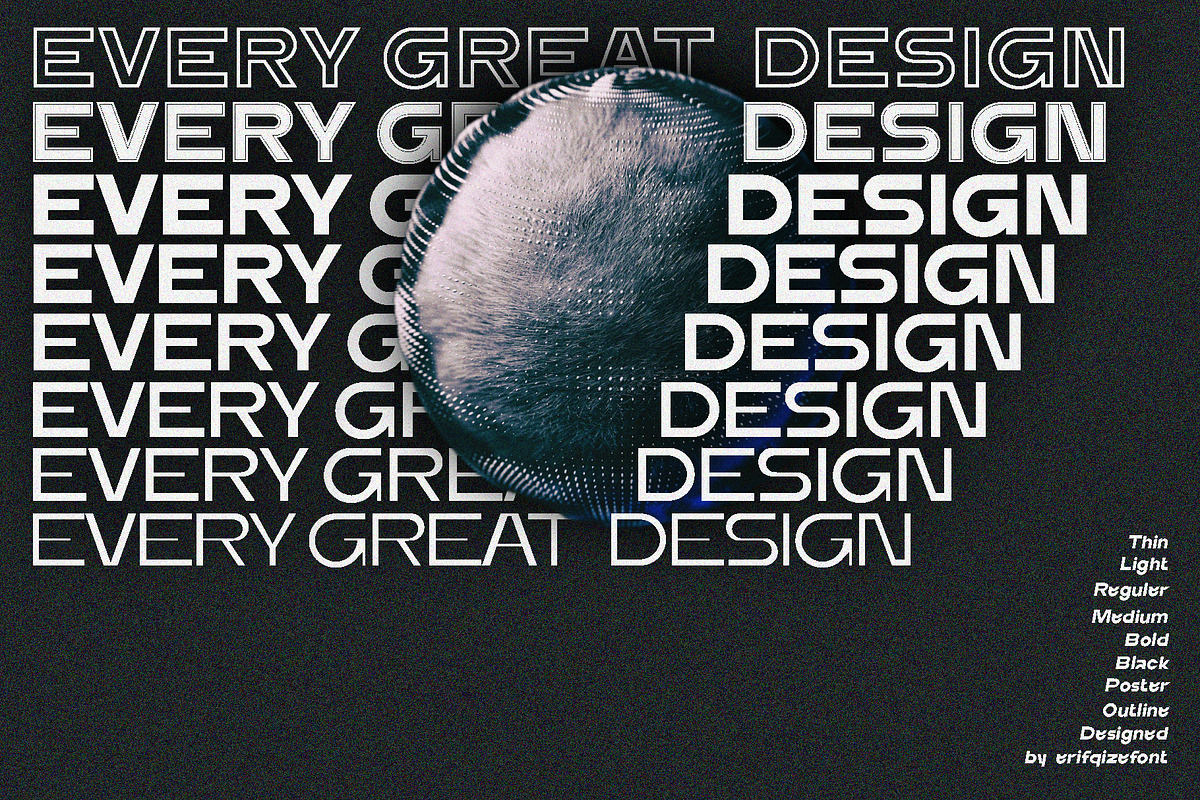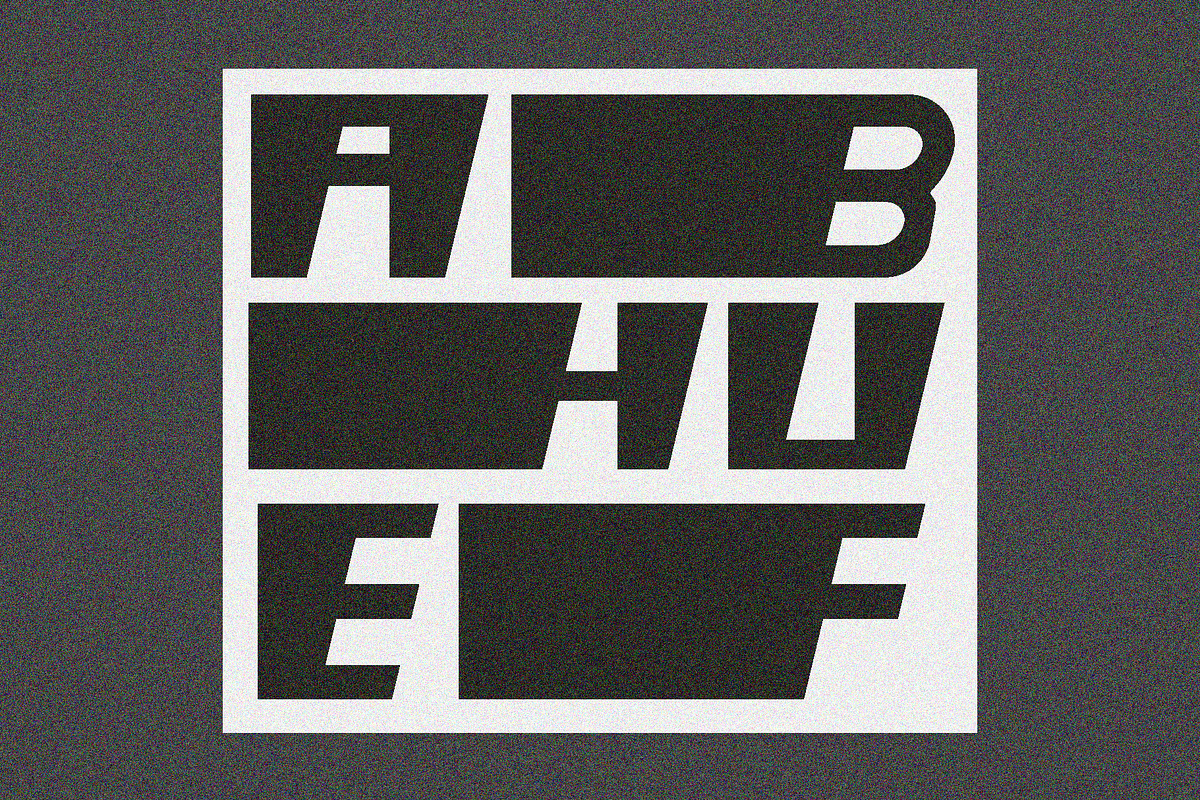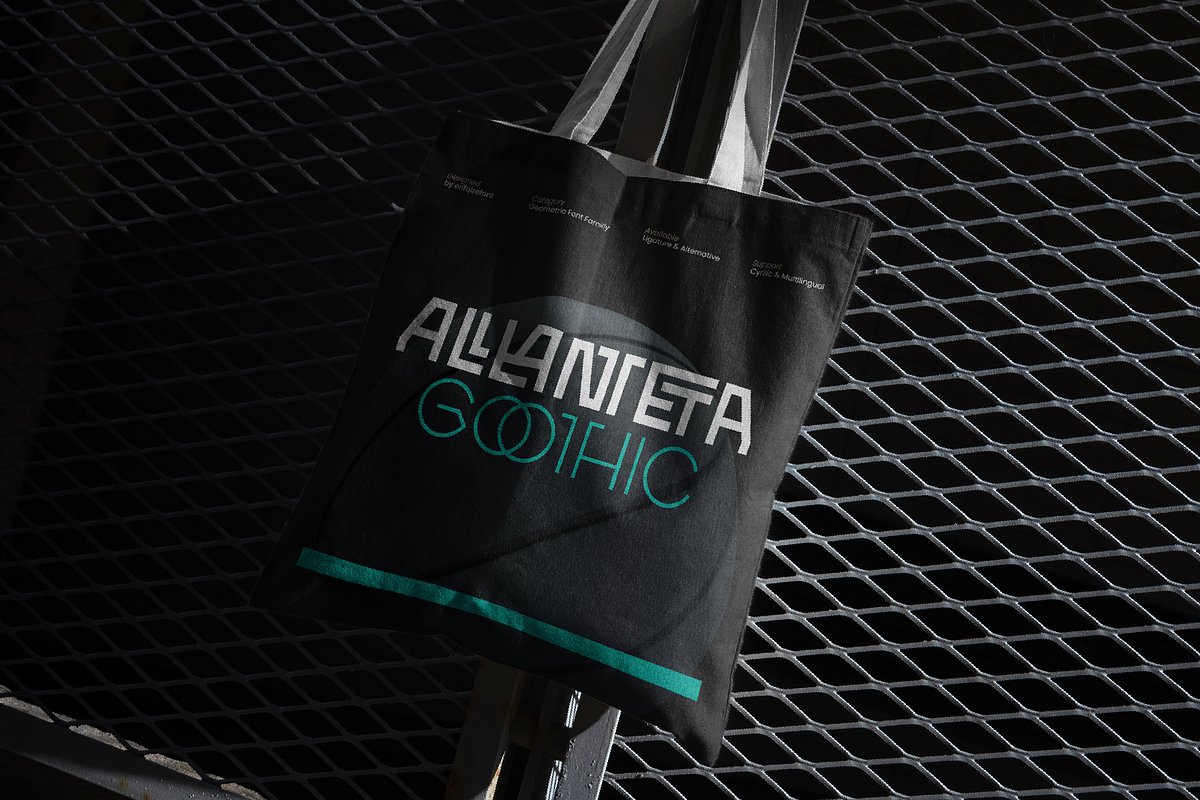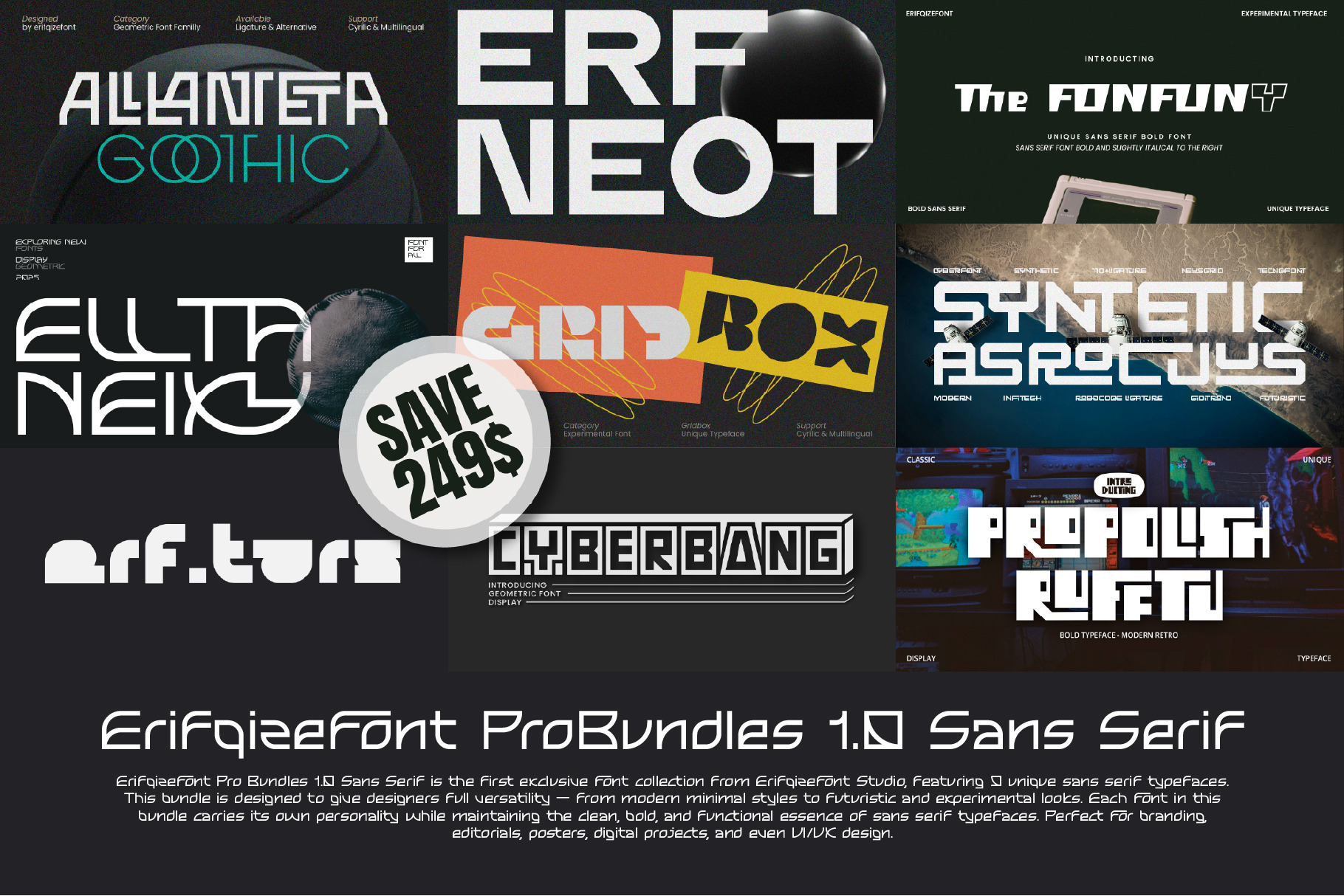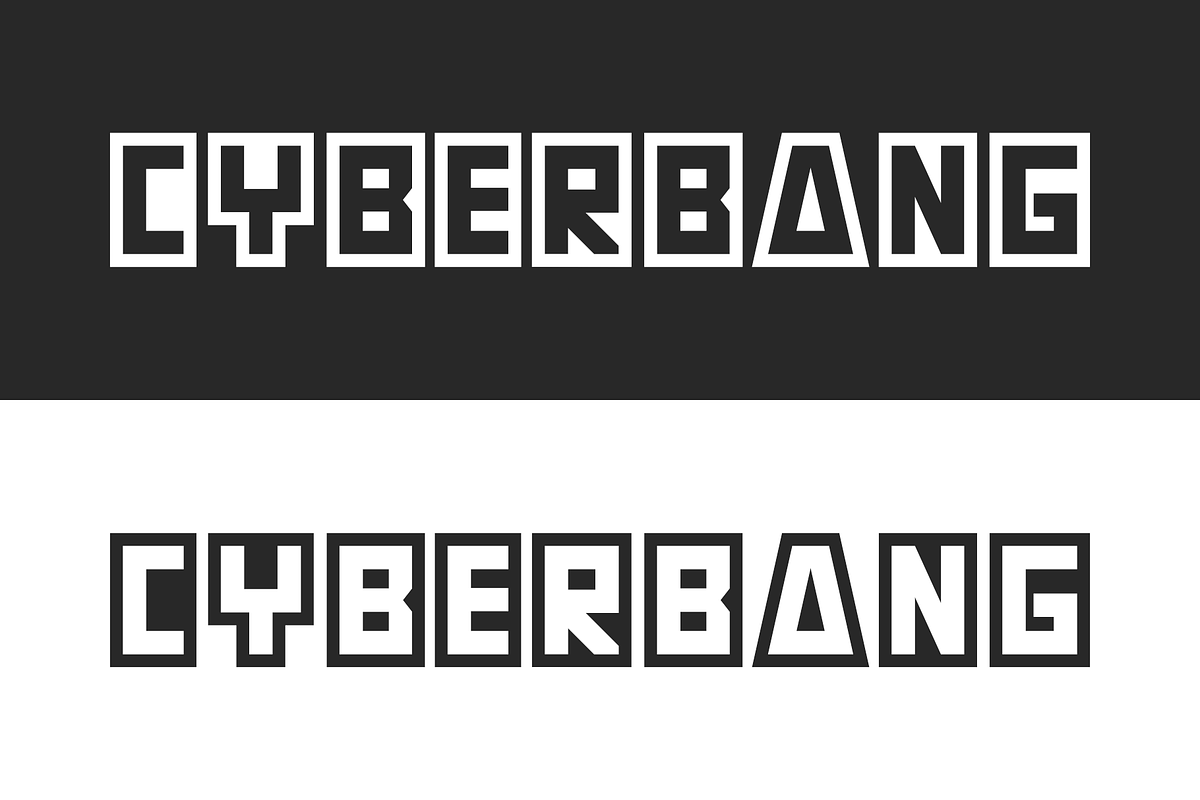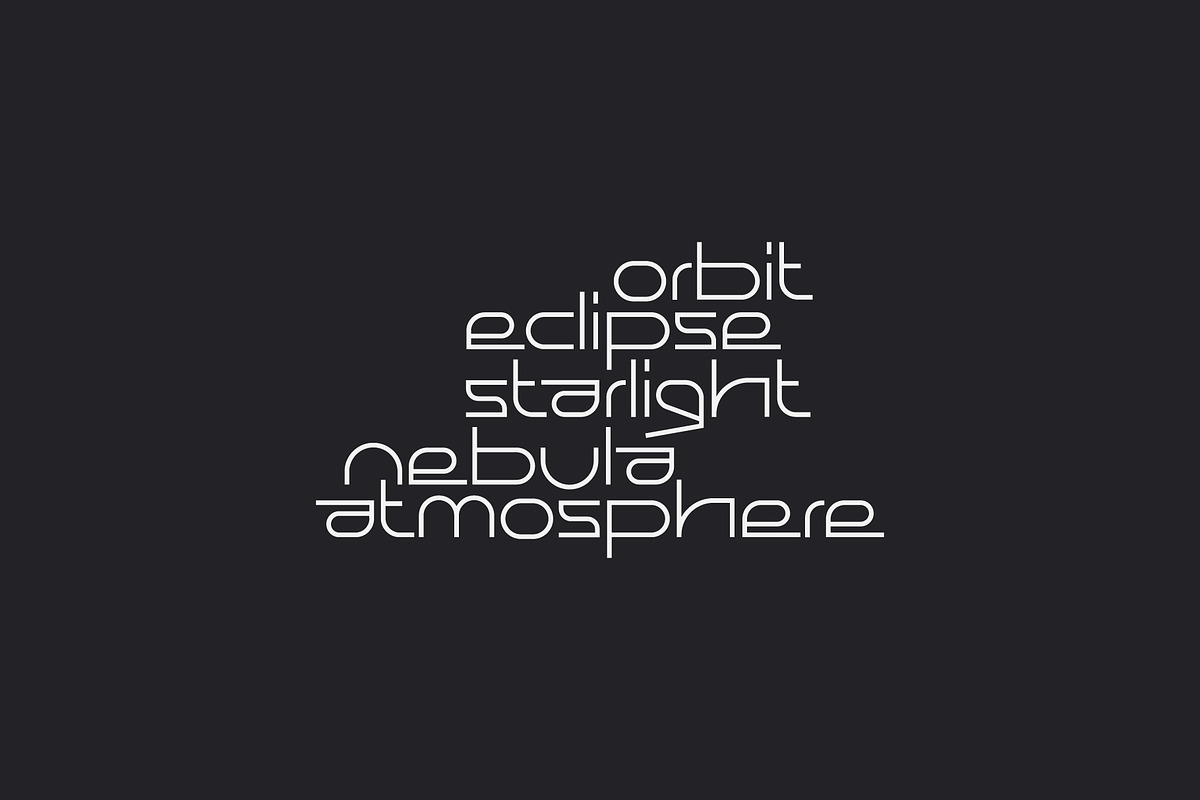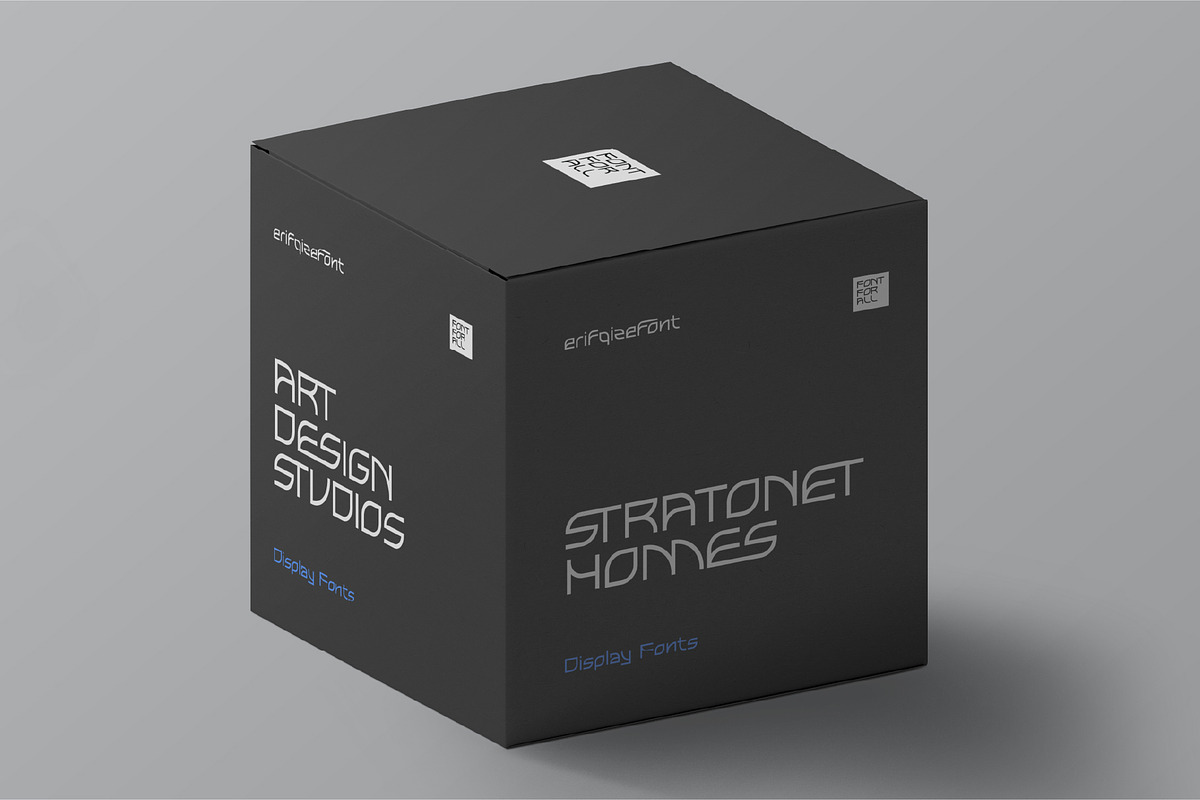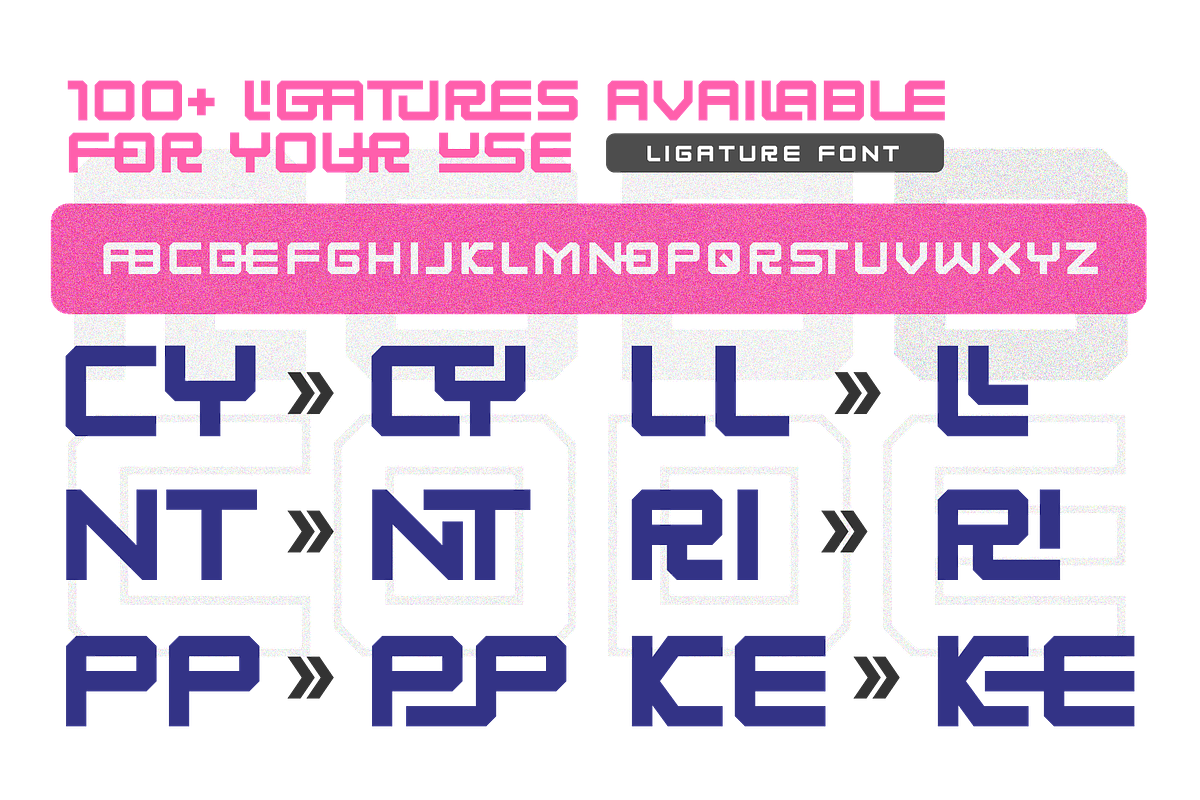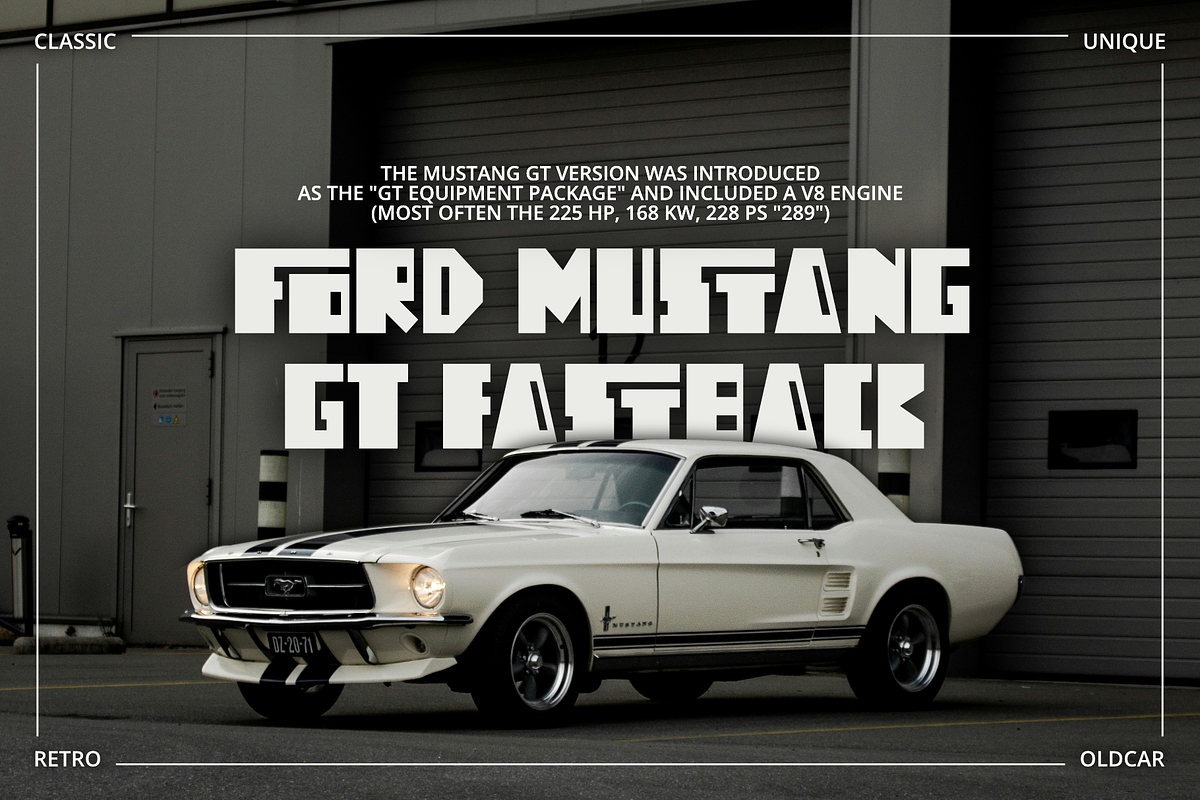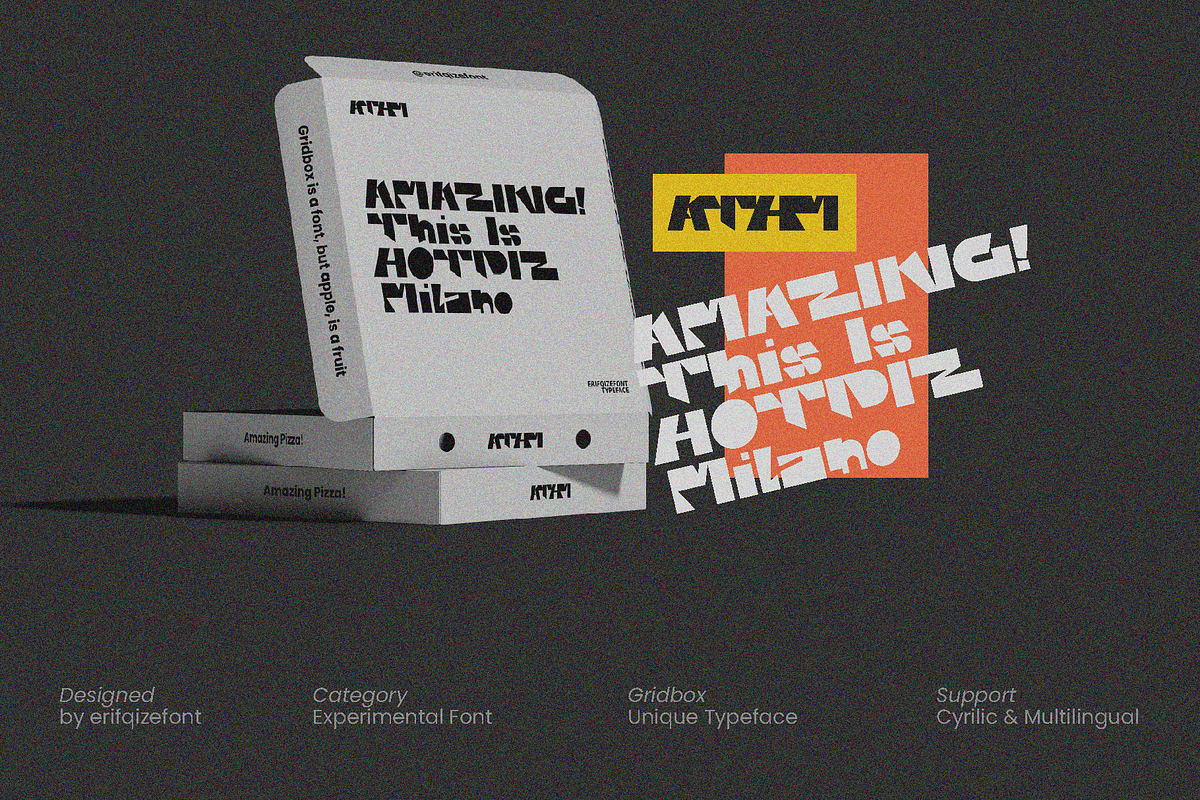
Bundles Sans Serif Font Erifqizefont
Erifqizefont Pro Bundles 1.0 Sans Serif is the first exclusive font collection from Erifqizefont Studio, featuring 9 unique sans serif typefaces. This bundle is designed to give designers full versatility — from modern minimal styles to futuristic and experimental looks. Each font in this bundle carries its own personality while maintaining the clean, bold, and functional essence of sans serif typefaces. Perfect for branding, editorials, posters, digital projects, and even UI/UX design. What’s included: - Syntetic Asrocuus – A futuristic sans with experimental shapes. - ERF Alanteta Goothic – A gothic-modern sans with strong character. - The Fontfuny – A playful sans with fun and quirky details. - Cyberbang – A bold cyber-inspired sans for tech-driven designs. - Propolish Rufftu – A textured sans with an urban-modern vibe. - ERF Tars – A geometric sans with clean proportions. - ERF Neot – A modern sans with 16 family styles, highly versatile and professional. - Elltaneixy – An artistic sans with an experimental touch. - Gridbox – An experimental sans with strong, unique characters available in Regular and Italic. With a total of 9 exclusive fonts in one package, Erifqizefont Pro Bundles 1.0 Sans Serif is the perfect choice to elevate your font library. Formats included: OTF, TTF, WOFF, WOFF2